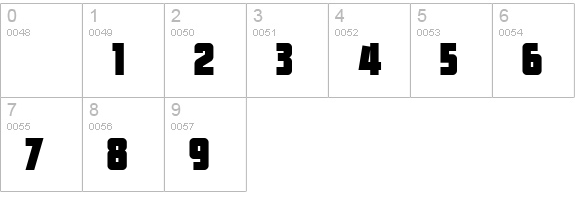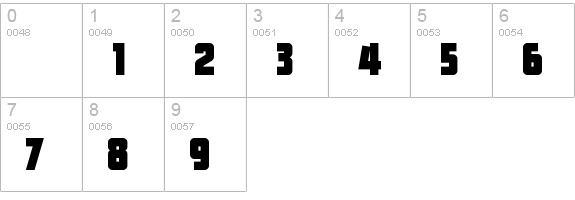
AerojonesNF Font Details
AerojonesNF font is a modern and sleek typeface that exudes a sense of elegance and sophistication. Its clean lines and stylish curves make it perfect for a wide range of design projects, from branding to editorial design. The versatility of AerojonesNF font allows it to be used in both digital and print media, making it a valuable addition to any designer's toolkit. What sets AerojonesNF font apart is not only its striking aesthetic appeal but also the fact that it is available for free download at FontsMarket.com. This means that designers can access this high-quality font without any cost, making it an excellent option for those working on a budget or looking to experiment with new typefaces. With AerojonesNF font, you can elevate your design projects with a touch of sophistication and style, all without breaking the bank.